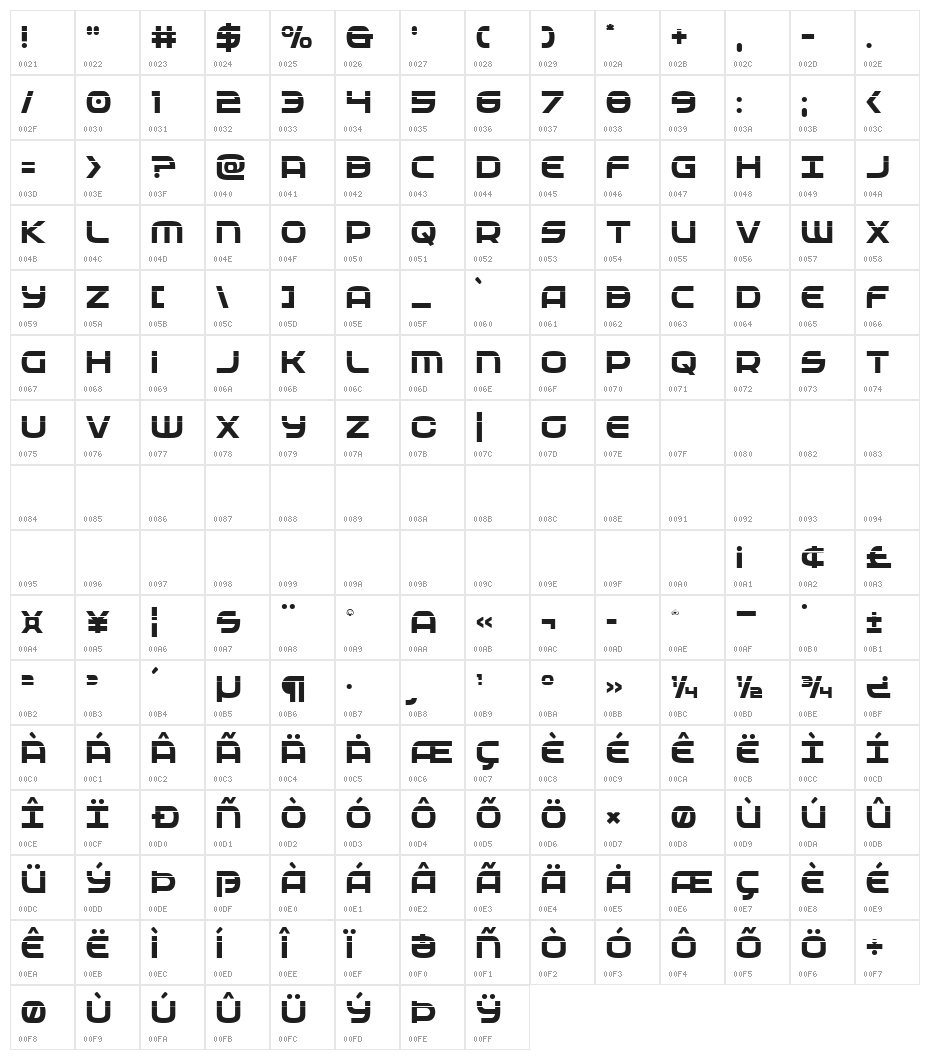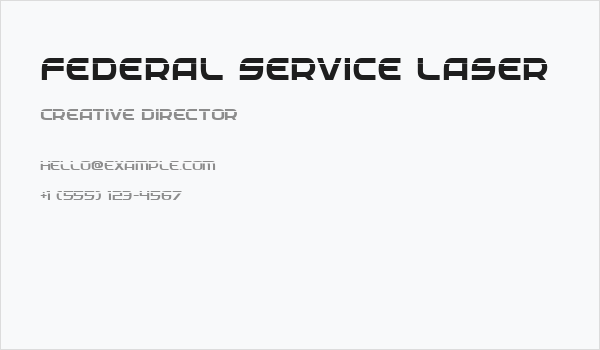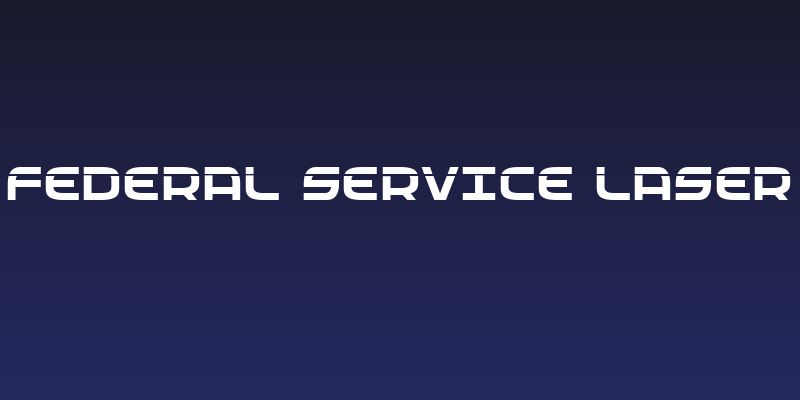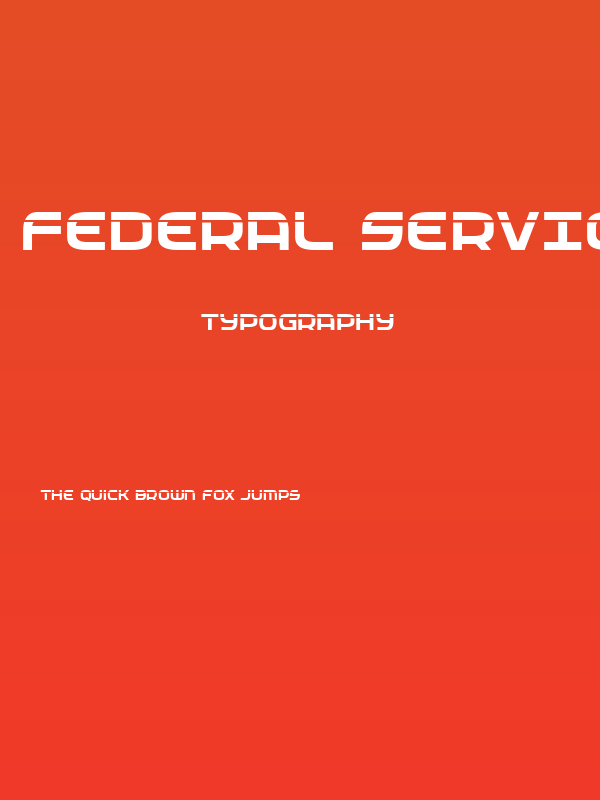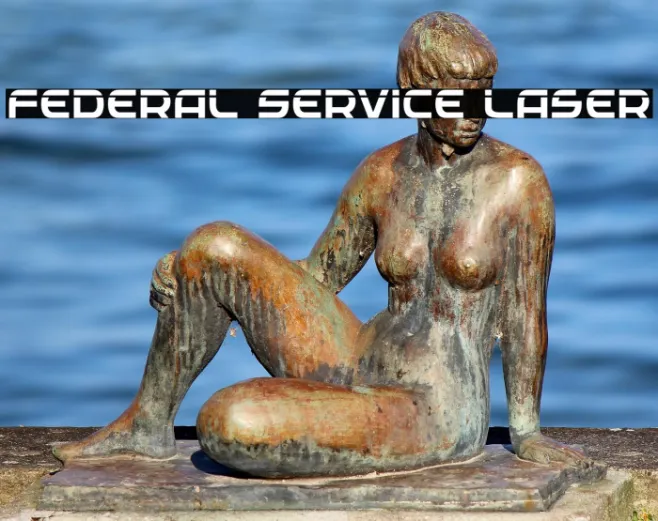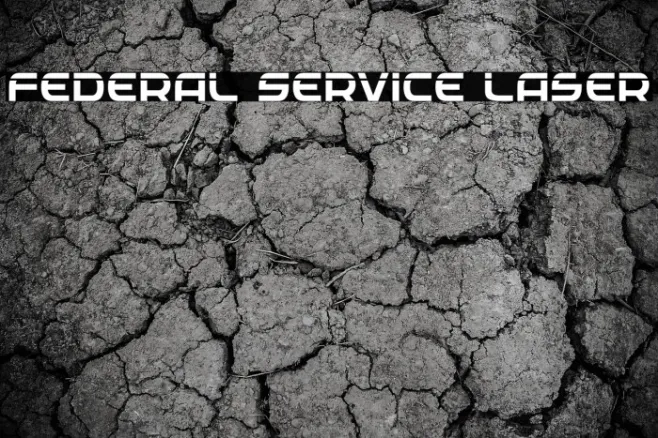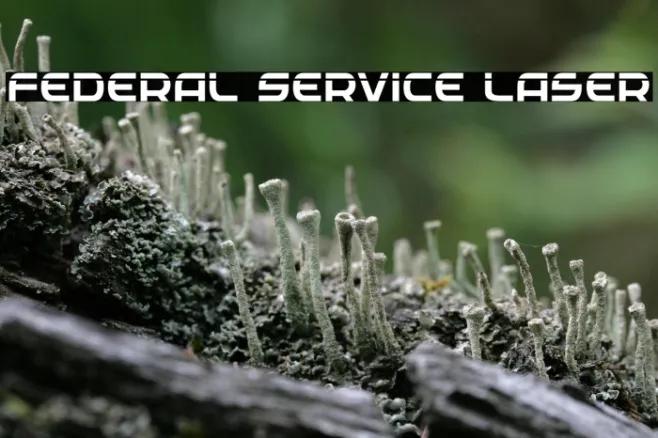
Federal Service Laser Font
Federal Service Laser Description
This font exhibits a futuristic and geometric style, characterized by its bold and angular letterforms. The uppercase and lowercase letters share a consistent design, with sharp edges and a uniform thickness throughout. The numbers and special characters maintain the same aesthetic, ensuring a cohesive look across all glyphs. The font's structure is clean and modern, making it suitable for projects that require a contemporary and tech-inspired appearance. Its distinct style is both eye-catching and versatile, ideal for making a strong visual impact.